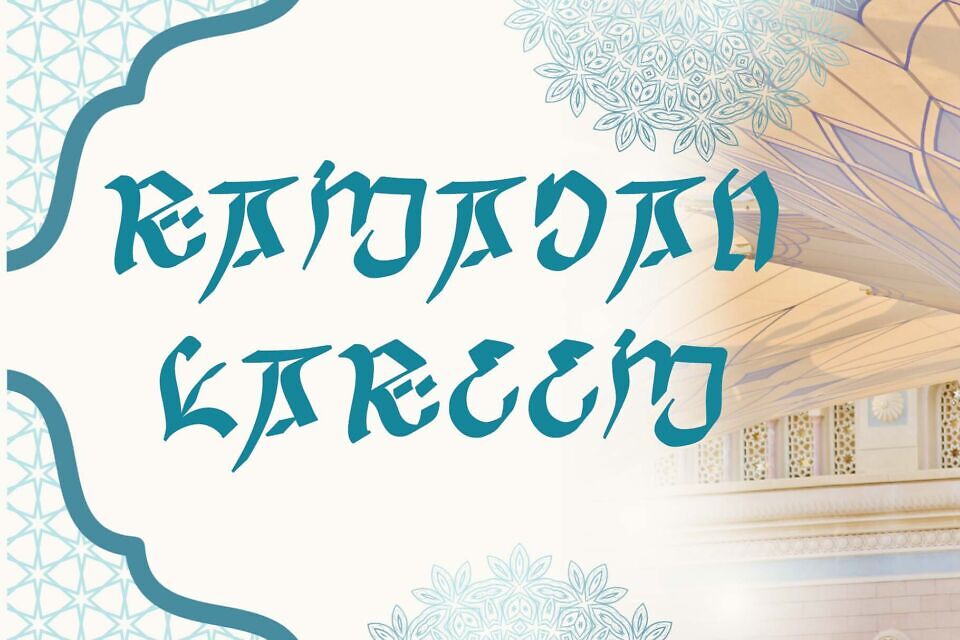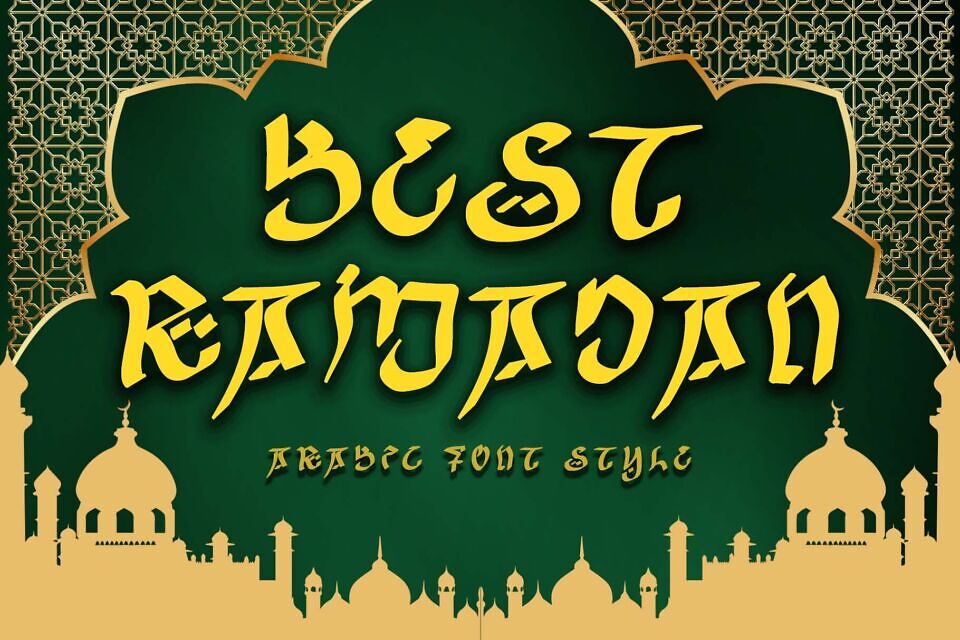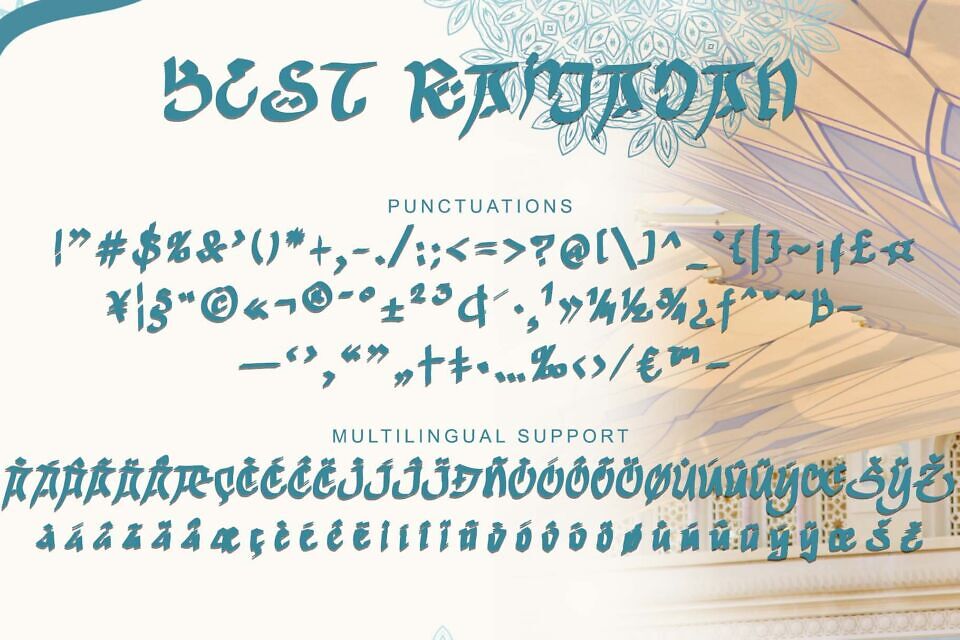
Best Ramadan is a very elegant and unique Arabic style font. This font is equipped with uppercase, lowercase, numeral, punctuations and multilingual support.
Very suitable for Ramadan moments, movie titles, book titles, logos, stickers, posters, prints, branding, invitations, Ramadan greetings and others.